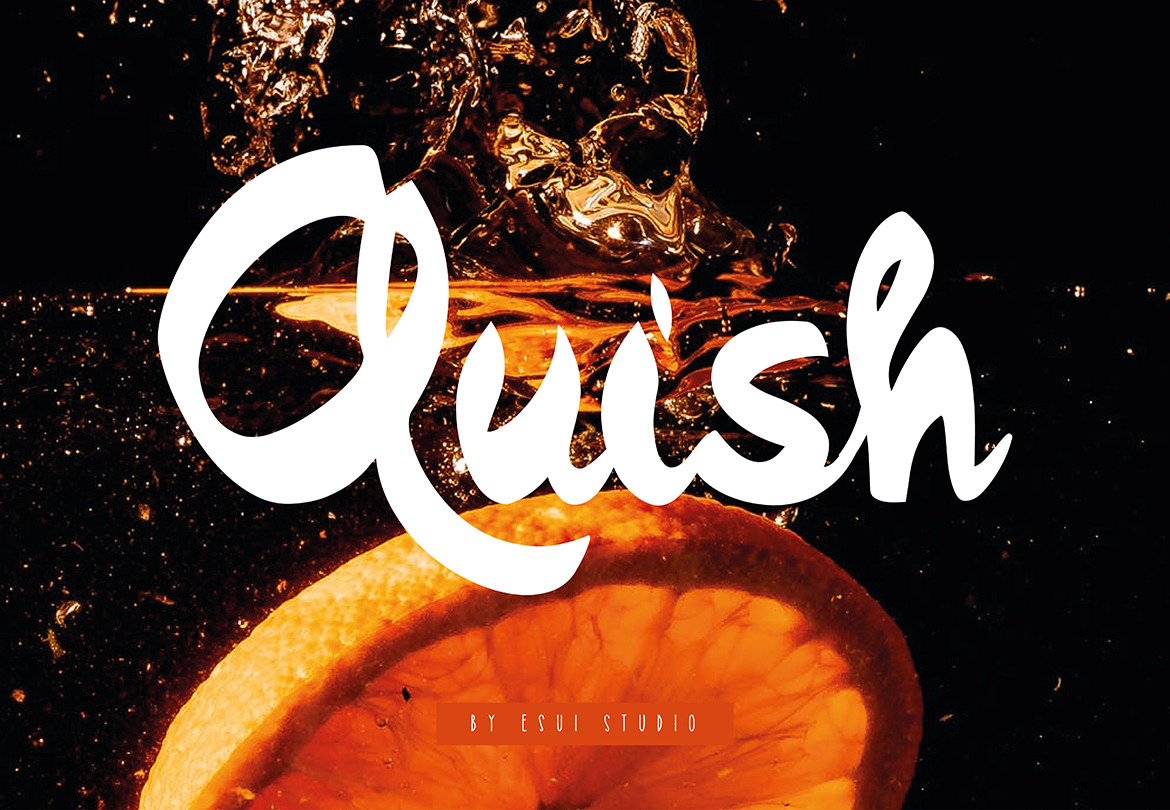
Quish is a handmade display typeface, designed with a brush and rough style in some of the letters.
Combination of style Street and scrip. wild hand and imperfect flow give the natural looks.